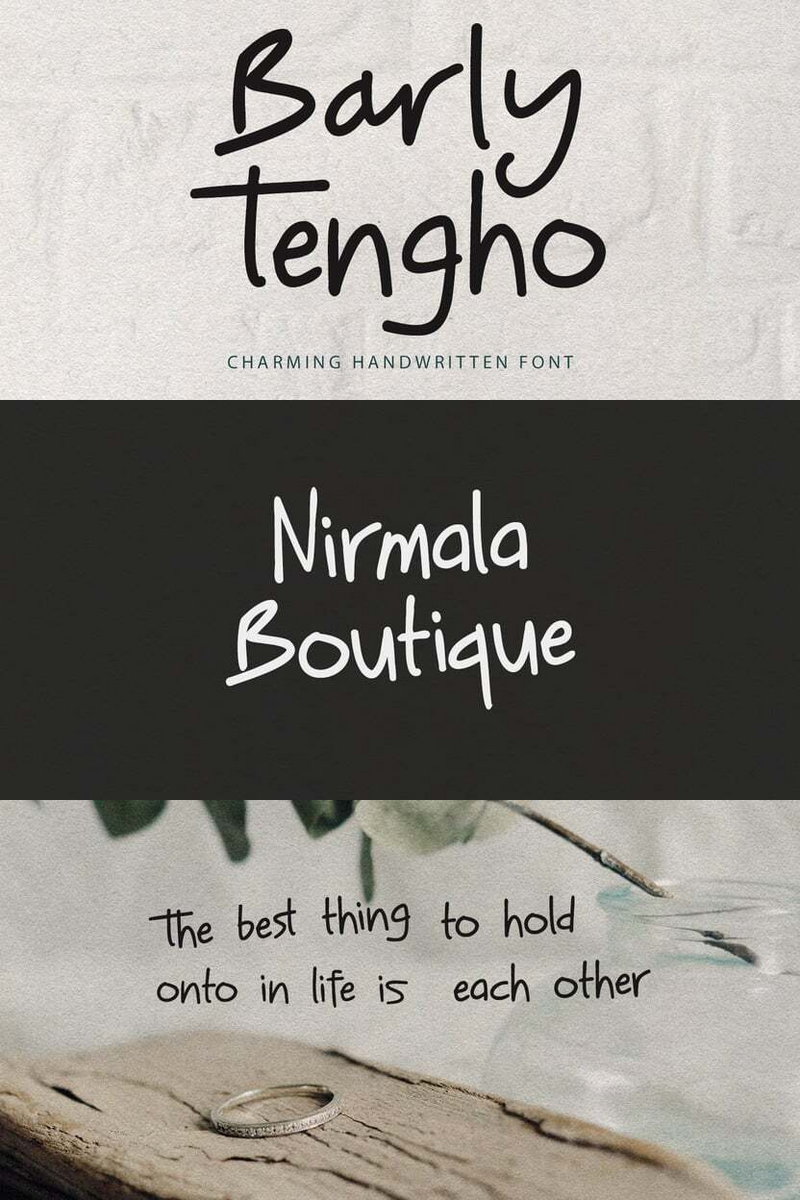
MC Barly Tengho: Own the Digital Narrative. The Adaptive Font for 'Future-Proof Your Stack' & 'Revolutionize Your Workflow' Headlines.
In the relentless sprint of tech and SaaS, your brand's voice isn't just what you say – it's how you appear. Generic typefaces fade into the noise, but a truly powerful font can define your entire digital presence. Meet MC Barly Tengho: the typeface engineered to cut through the clutter and command attention.
This isn't just another font. MC Barly Tengho is the architectural backbone your digital presence demands. It’s a study in controlled power – where sharp, confident lines meet understated, modern curves. Each character is meticulously crafted, exuding a sleek professionalism that speaks volumes without a single word. It possesses an inherent dynamism, a subtle pulse that signals innovation and forward momentum. It’s precise, yet fluid; authoritative, yet inviting. MC Barly Tengho doesn't just display text; it commands attention and guides the eye with sophisticated ease.
Picture this: your revolutionary SaaS platform is scaling rapidly. Your marketing team needs to launch an aggressive campaign, driving sign-ups with powerful calls-to-action on the landing page. Simultaneously, your product team is refining the in-app experience, needing absolute clarity and legibility for complex data dashboards and feature descriptions. The challenge? Maintaining a cohesive, powerful brand identity across these wildly different touchpoints. Many fonts falter, forcing you to compromise on either impact or readability. Not MC Barly Tengho. It seamlessly transitions from a bold, attention-grabbing headline on your "Disrupt Your Market" homepage to the crystal-clear, ergonomic labels within your "Real-Time Analytics" dashboard. It’s the single typeface that adapts its personality without losing its core identity, unifying your brand story from the first click to daily engagement.
MC Barly Tengho stands out because it's built for the relentless demands of the modern tech landscape.
- Unrivaled Versatility: MC Barly Tengho is a chameleon with a consistent core. It masters both the dramatic flair of a hero banner and the subtle nuance of microcopy. This means less design clutter, more brand cohesion across all touchpoints.
- Adaptive Performance: Engineered for the digital age, it renders flawlessly across all devices and resolutions. Your message remains pristine, whether viewed on a colossal display or a smartphone, ensuring a premium user experience every time.
- Magnetic Brand Identity: Project an image of cutting-edge innovation and unwavering reliability. MC Barly Tengho helps forge a distinct, memorable visual language that sets your tech brand apart from the competition, building trust and authority from the first glance.
- Enhanced User Engagement: With optimal legibility and a modern aesthetic, MC Barly Tengho reduces cognitive load, making information easier to digest and guiding users intuitively through your interfaces, transforming passive viewers into engaged users.
This is more than a font. It's an investment in your brand's future.MC Barly Tengho: Your Tech, Amplified. Your Vision, Uncompromised.
Imagine MC Barly Tengho anchoring your website's hero section with a headline like 'Unleash Exponential Growth.' See it simplifying complex data visualizations in your product dashboards. Envision it delivering crisp, clear messages in your email marketing campaigns, or lending authority to your crucial developer documentation. From app interfaces to pitch decks, MC Barly Tengho is the silent powerhouse making your content resonate.